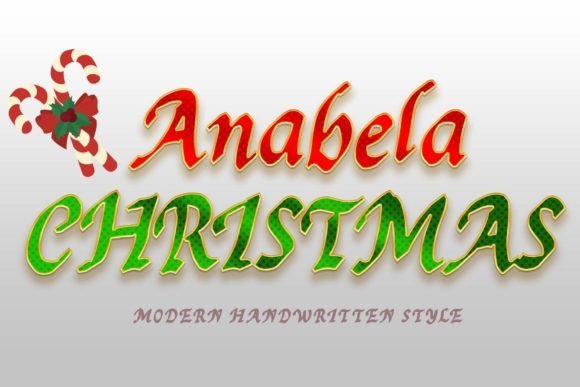
Deck the Halls with the Perfect Font
Have you ever found yourself stuck in front of a blank canvas, trying to bring a holiday-themed design to life? You’ve got the perfect image in mind, but something’s missing – a touch of elegance, a dash of whimsy, and a whole lot of festive cheer. That’s where the Anabela Christmas Font comes in – a stunning handwritten font that will make your designs shine like a perfectly placed star on a Christmas tree.
This beautiful font is more than just a pretty face; it’s a versatile tool that’s perfect for a wide range of projects, from business branding and Christmas invitations to weddings, Halloween designs, and more. With its elegant script and multilingual support, the Anabela Christmas Font is a valuable addition to any designer’s toolkit.
Anabela Christmas Font Key Features
- Size: 1,032 glyphs, including uppercase and lowercase letters, punctuation, and symbols
- Unique Characteristics: Elegant and festive script font, perfect for Christmas-themed designs, invitations, and cards
Anabela Christmas Font Review
I recently had the chance to work with the Anabela Christmas Font, and I must say it’s a unique addition to any holiday design project. ✨ The font’s playful, handwritten feel instantly evokes the spirit of the season. It’s perfect for creating invitations, social media graphics, and other festive content.
However, there are a few limitations to consider. ⚠️ For one, the font’s irregular shape and letterforms can make it difficult to read at small sizes. Additionally, the font’s playful feel may not be suitable for more formal or professional designs.
- Unique, handwritten feel
- Perfect for holiday designs
- Difficult to read at small sizes
- May not be suitable for formal designs
Overall, I think the Anabela Christmas Font is a great choice for designers looking to add some holiday cheer to their projects. With its versatility and unique feel, it’s sure to be a hit with clients and customers alike.
The Anabela Christmas Font is ideal for holiday-themed designs, such as Christmas cards, gift tags, and invitations. It’s also great for adding a festive touch to your branding and marketing materials. To get the most out of this font, use it in combination with other winter-themed graphics and colors.
Q: What is the recommended font size for optimal readability with the Anabela Christmas Font?
For optimal readability, we recommend using font sizes between 18pt and 36pt for body text and 48pt and 72pt for headings. This will ensure the font remains legible and visually appealing in various design contexts.